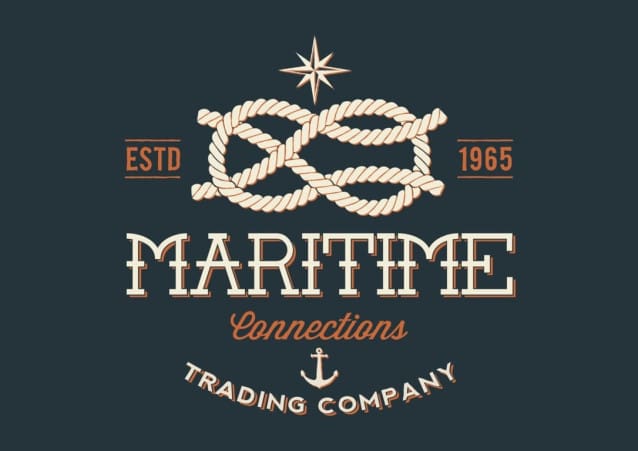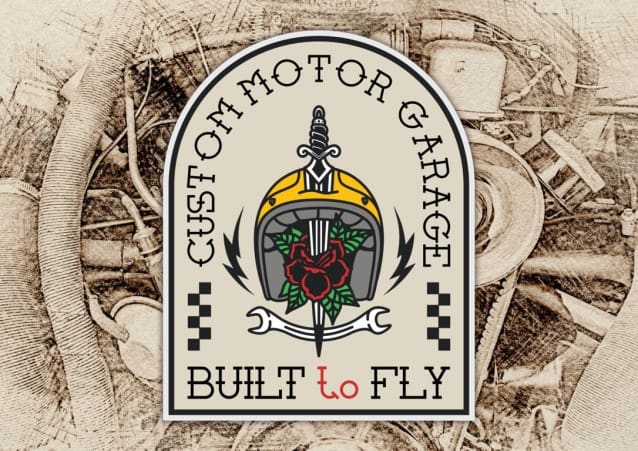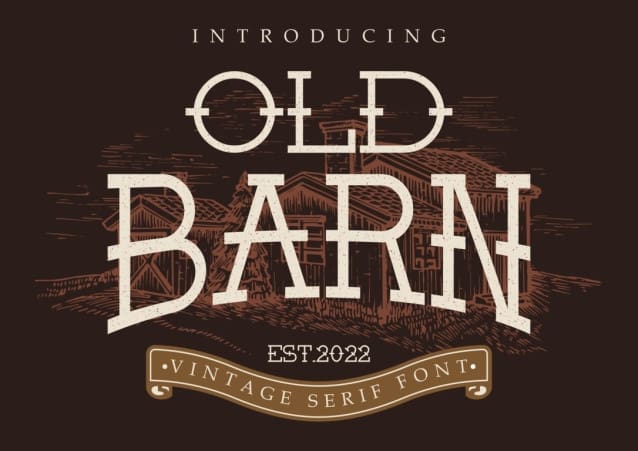
Old Barn Font
Old Barn Font, a vintage display font with a bold and powerful appearance. This font is meticulously hand-lettered, giving it a natural and authentic feel that perfectly suits vintage and rustic themes. Old Barn is especially crafted for applications like logos, invitations, labels, magazines, books, greeting and wedding cards, packaging, fashion, makeup, stationery, novels, labels, or any type of advertising purpose. Embrace the timeless charm of OldBarn and let it elevate your designs with its rustic elegance.